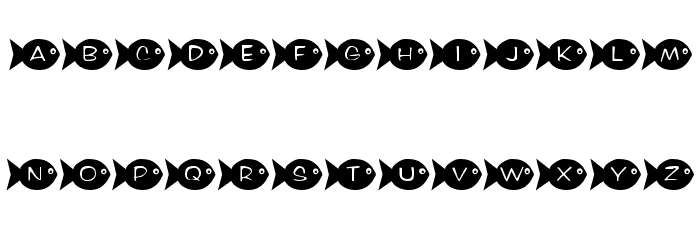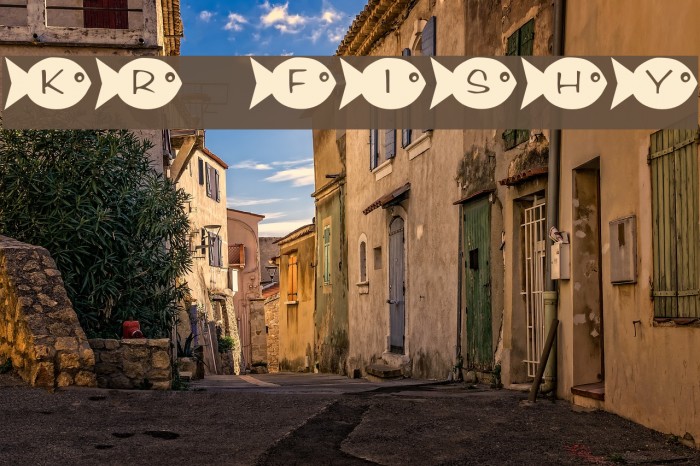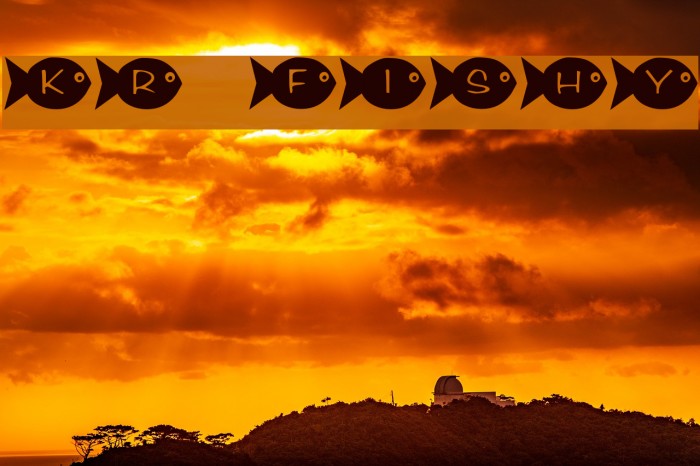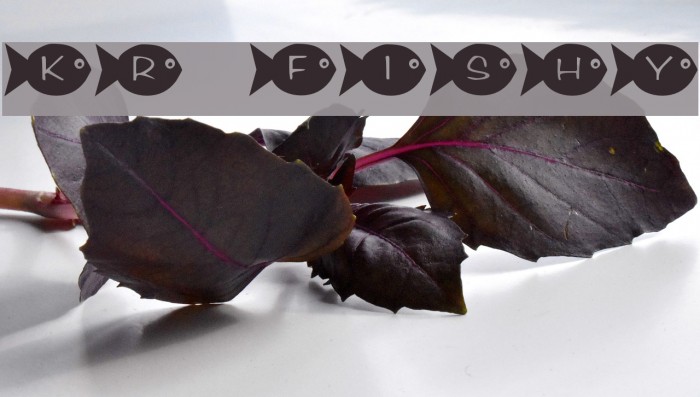
KR Fishy Font
This playful and whimsical font features characters enclosed within stylized fish shapes, creating a unique and eye-catching design. Each letter is centered inside a fish silhouette, with the tail and head forming the boundaries. The bold and rounded letters contrast sharply with the solid black fish shapes, making the characters stand out prominently. This font is ideal for projects that require a fun and aquatic theme, such as children's books, aquarium signage, or playful branding. The consistent use of fish shapes around each character adds a cohesive and thematic element to the overall design.
A whimsical font with letters inside fish shapes, perfect for aquatic-themed projects.
- Proposed Projects: Children's books, aquarium signage, playful branding, themed party invitations.
- Use Case: Logos, Headlines, Themed Events